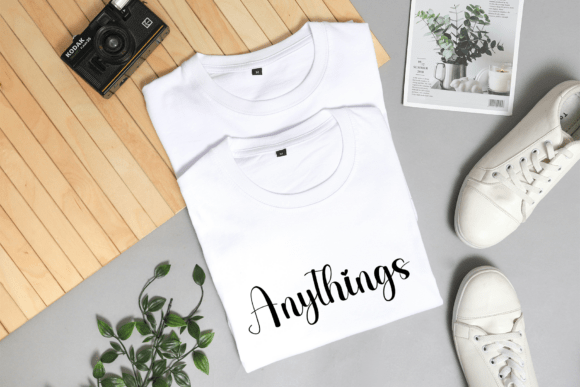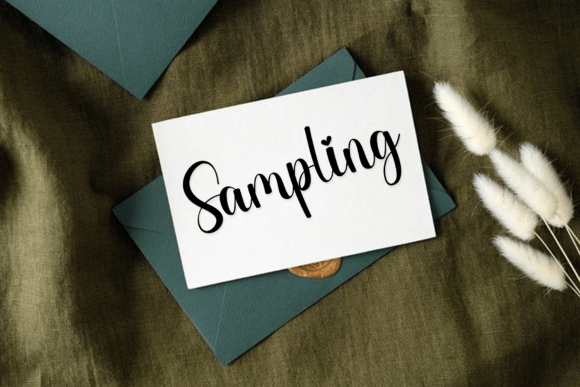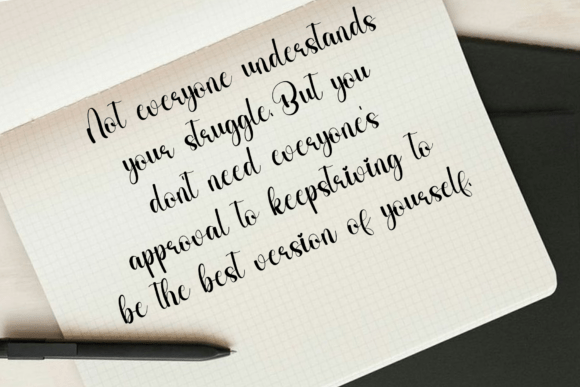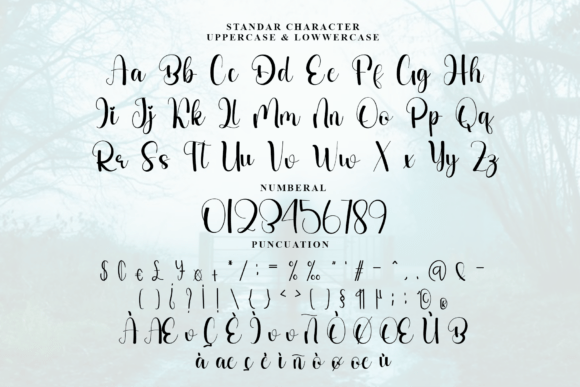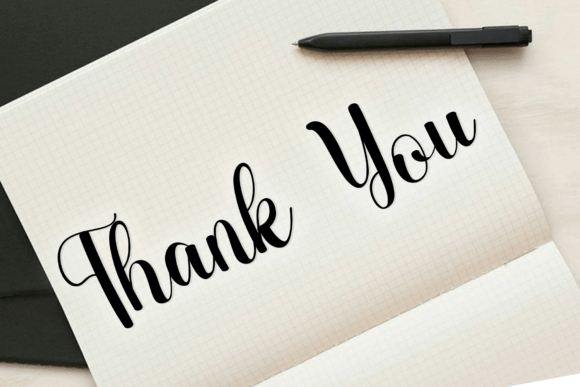
Discovering the Perfect Script for Your Next Creative Project
Have you ever been on a hike, surrounded by nature’s serenity, and felt the urge to create something that captures its essence? For designers, that moment of inspiration often comes when they’re searching for the perfect font to match their project’s tone and style. For me, it was the moment I stumbled upon the Calligraphy Mandala Font – a unique and professional entry into the modern handwritten collection.
Designed to evoke a sense of clarity and crisp elegance, the Calligraphy Mandala Font features tall, thin strokes with a subtle, airy slant. Its clean and approachable style makes it ideal for a variety of applications, from travel photography to branding for outdoor gear and sophisticated web design. As a designer, having access to this versatile font can be a game-changer, allowing you to create projects that truly stand out.
- Unique Characteristics: The Calligraphy Mandala Font features intricate, hand-drawn calligraphy and mandala designs, adding a touch of elegance and sophistication to any design project.
Review of Calligraphy Mandala Font
I recently had the chance to work with the Calligraphy Mandala Font, and overall, I was quite impressed. Here are my thoughts.
- The intricate details and curves of the font make it perfect for adding a touch of elegance to your designs.
- The font’s versatility allows it to be used in a wide range of projects, from wedding invitations to art prints.
- The font’s high-resolution quality ensures that it looks great in both digital and print formats.
- The font’s complexity can make it difficult to use in certain situations, such as when working with tight deadlines or limited design experience.
- The font’s size can be quite large, which may not be ideal for projects that require a lot of text.
- The font’s unique design may not be suitable for all audiences or projects, as it can be quite ornate and may not be easily readable for some viewers.
Overall, I think the Calligraphy Mandala Font is a great addition to any designer’s toolkit. While it may have some limitations, its unique design and versatility make it a great choice for a wide range of projects.
Use the Calligraphy Mandala Font to add a touch of elegance to your designs. Combine it with other fonts for a unique look. Experiment with different font sizes and colors to achieve the desired effect.
The Calligraphy Mandala Font is ideal for wedding invitations, event posters, and social media graphics. Use it to create eye-catching headings, titles, and quotes that add a touch of sophistication to your designs.